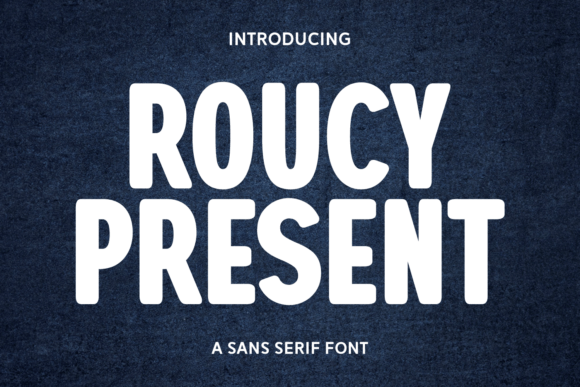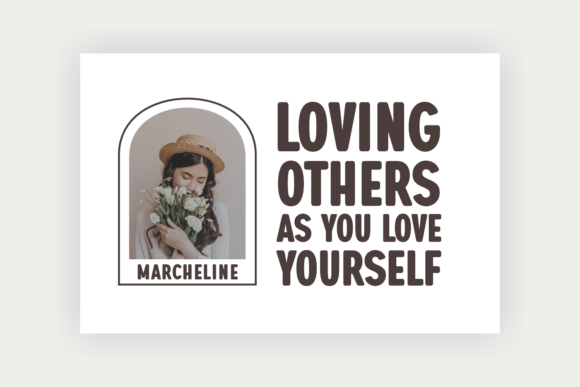
Roucy Present is a modern sans-serif font with clean lines and elegant curves. Its contemporary design offers versatility, making it ideal for branding, headlines, logos, and editorial layouts. With a minimalist aesthetic, Roucy Present delivers sophistication and readability for any creative project.
Roucy Present Font